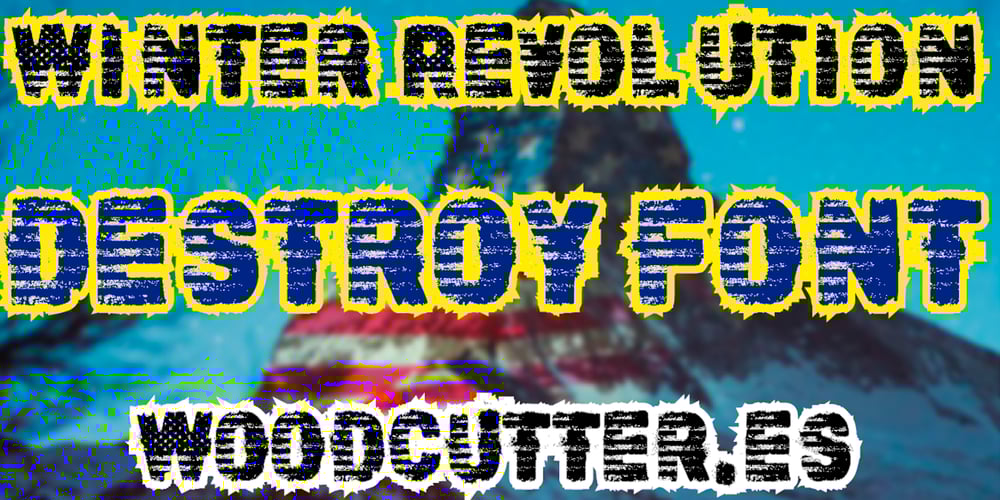
Winter Revolution Font Family was designed by Jordi Manero and published by Woodcutter. Winter Revolution contains 1 styles and family package options. “Winter Revolution” is a striking font featuring uppercase letters with a worn and shattered style, evoking a sense of rebellion and resistance. Each letter subtly incorporates the United States flag, adding a patriotic touch amidst the visual chaos. This typeface is ideal for designs aiming to convey an atmosphere of radical change or defiance, perfect for protest posters, urban art, or any project requiring a font with strong and symbolic character.